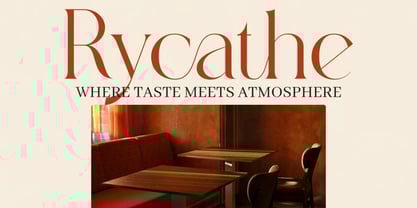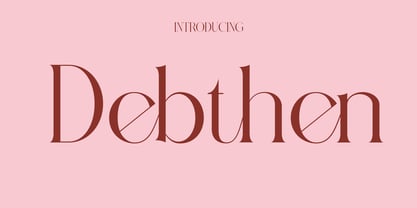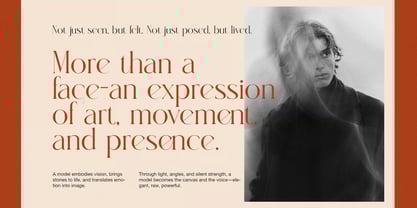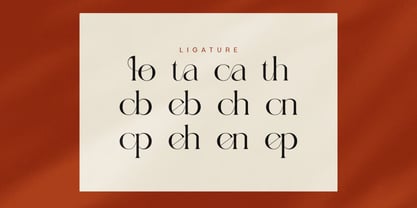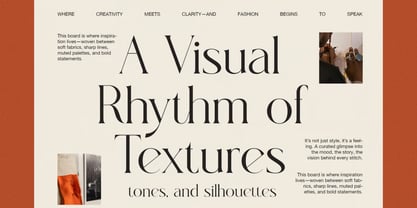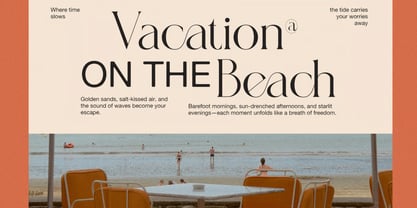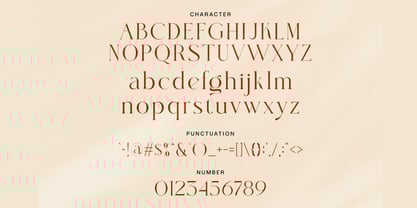
Debthen
by Hasnat Studio
The Debthen Font Family was designed by Hasnat Khan and published by Hasnat Studio. Debthen contains 1 styles.
Debthen is a premium serif typeface designed for those seeking a bold, modern, and stylish visual impact. This font seamlessly blends classic serif elegance with a contemporary twist, offering strong contrast, crisp lines, and refined curves. It is ideal for standout branding, luxurious logos, magazine layouts, and eye-catching posters. Debthen shines in larger sizes, maintaining clarity and sophistication while showcasing its intricate details. Whether you're crafting a powerful headline, a premium product label, or an elegant wedding invitation, this typeface adds an unmistakable touch of elegance and confidence to any project. ✿ Key Features: - Premium Serif Styling: A perfect blend of classic charm and modern sharpness. - High Contrast Details: Ideal for bold, upscale visual themes. - Elegant Curves & Clean Lines: Provides a polished, high-end finish. - Ligatures & Special Features: Enhance creativity and personalization. - Multilingual Support: Covers a wide range of international languages. - Versatile Aesthetic: Works beautifully on both light and dark backgrounds. ✿ Perfect For: - Branding & Luxury Logos - Magazine Headlines & Editorial Layouts - Wedding Invitations & Stationery - Product Packaging & Labels - Posters, Titles & Display Designs - Web & Social Media Graphics. Elevate your creative projects with Debthen — a stylish, modern serif typeface that brings elegance, strength, and premium quality to every design.
About Hasnat Studio
Hasnat Studio is an independent type foundry specializing in the development of high quality, contemporary typefaces that serve a wide range of design needs. With a focus on precision, readability, and stylistic innovation, the studio produces fonts that seamlessly integrate into modern branding, publishing, UI/UX, and multimedia environments. Hasnat Studio operates at the intersection of tradition and technology, combining the principles of classical typography with the flexibility of modern digital tools. The studio emphasizes multilingual and cross cultural compatibility, ensuring its typefaces are globally accessible and adaptable. Through a commitment to craftsmanship, consistency, and functional design, Hasnat Studio delivers reliable typographic solutions for professionals across creative industries.